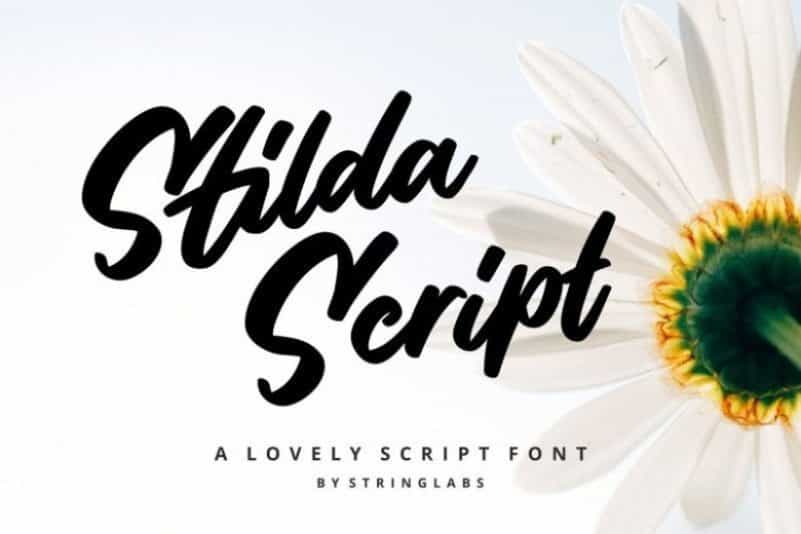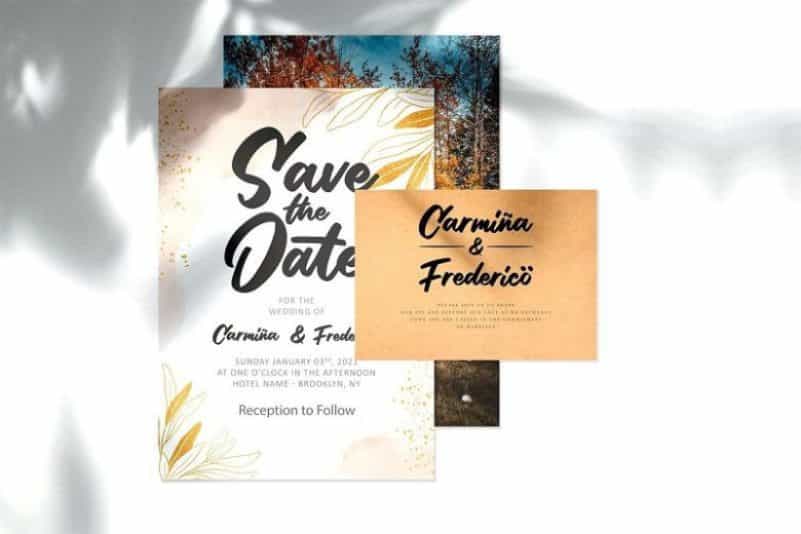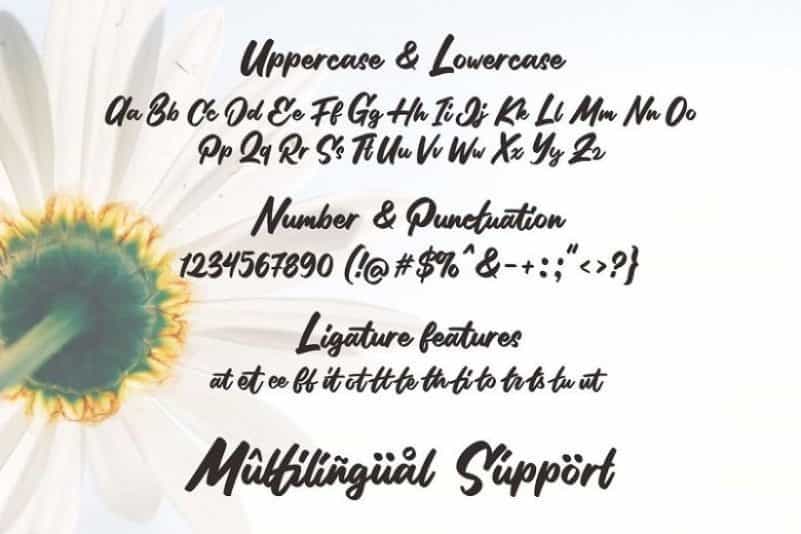
Discover Stilda Lovely Script Font, part of the Brush Calligraphy Handwritten collection—a versatile and unique font perfect for adding a personal touch to your projects. Download it for free and enjoy crafting designs with style, from invitations to social media posts. This font is available exclusively for personal use, giving you the freedom to create without limits. Unlock your creativity with Stilda Lovely Script Font today!
Stilda is a Lovely Handwritten Script Font created in an original and genuine style. Stilda is combined with ligatures that make your fonts match each other. Stilda is just the right font for those of you who are fans of fonts with a casual and natural style.